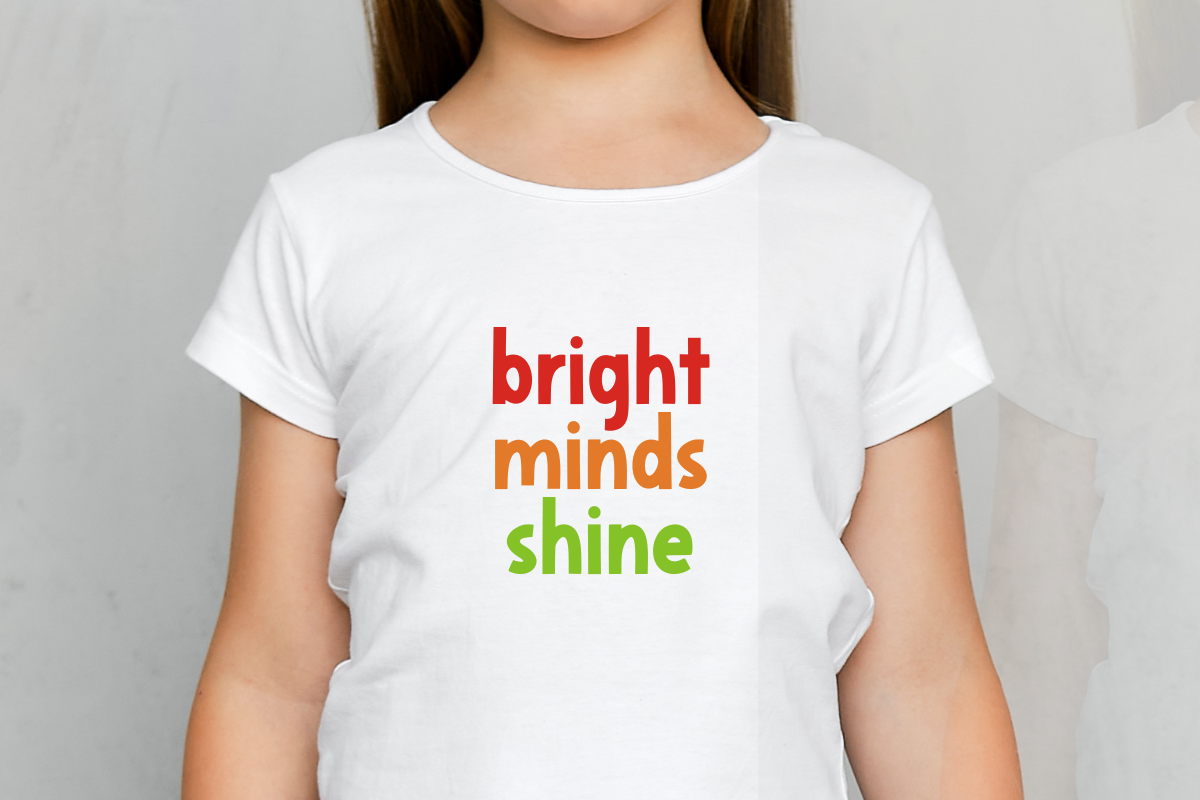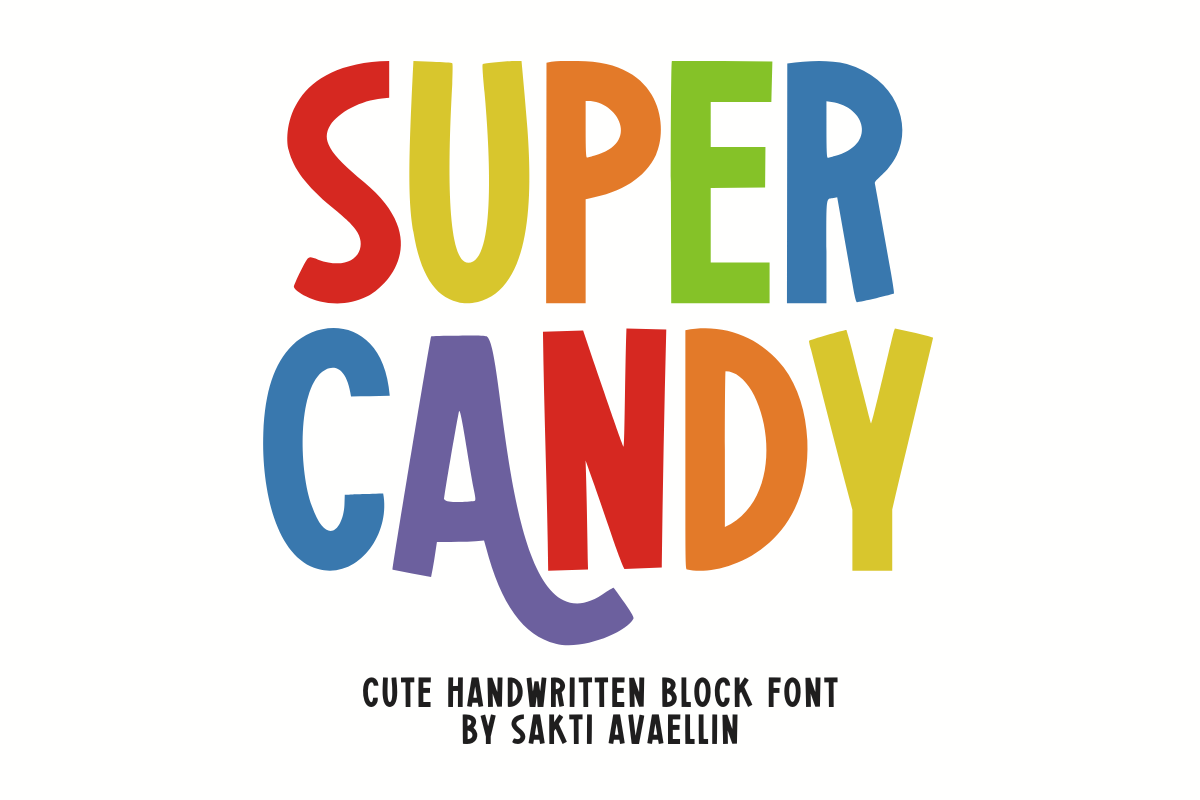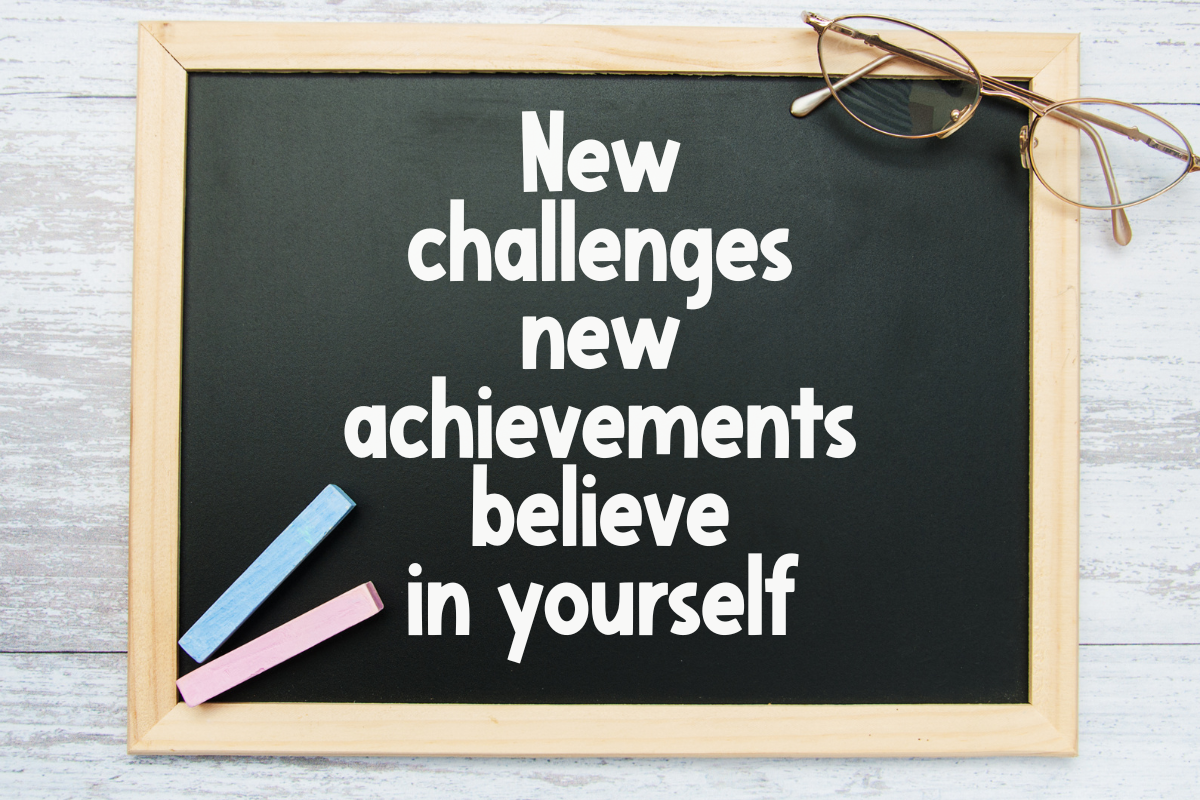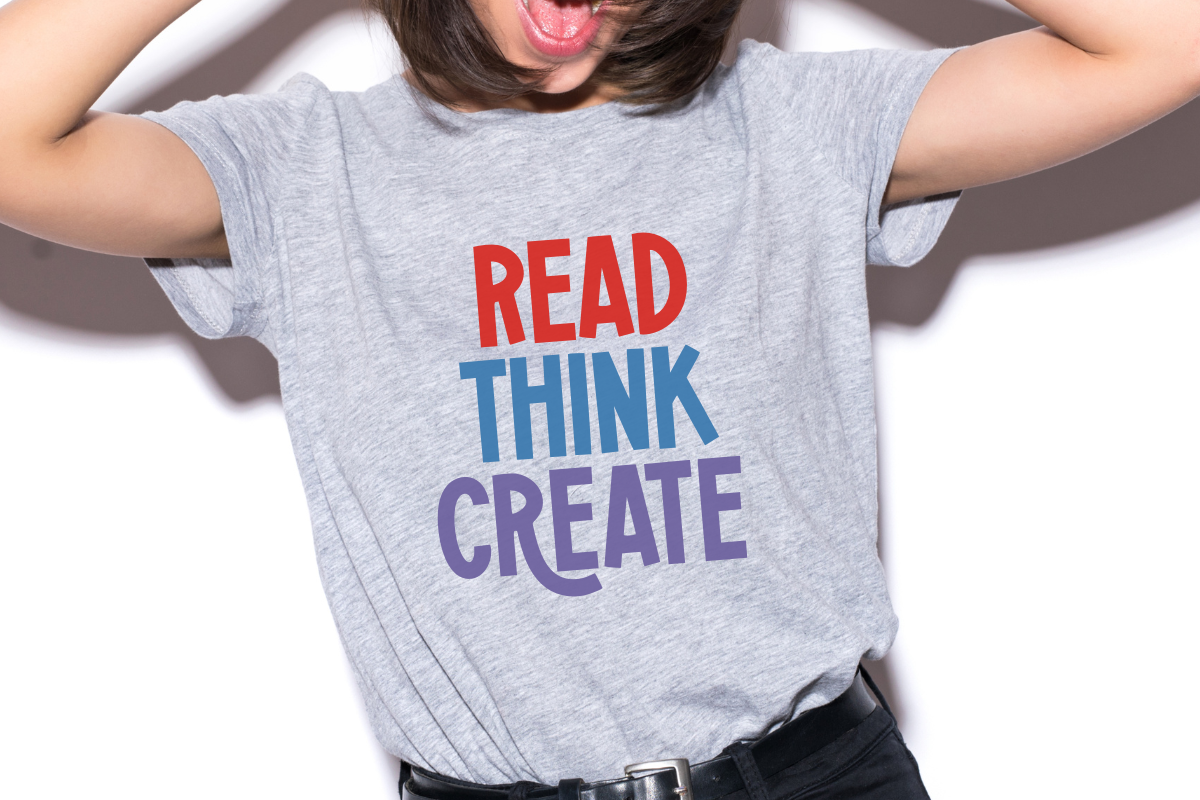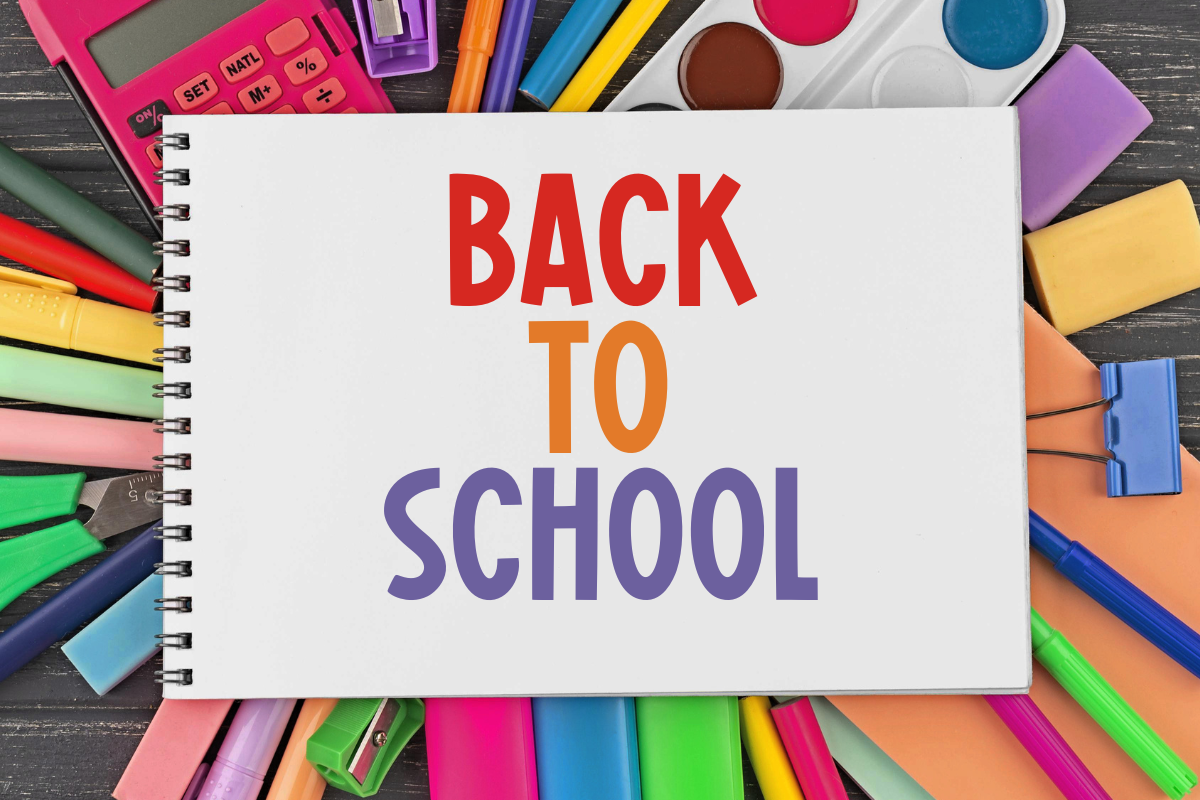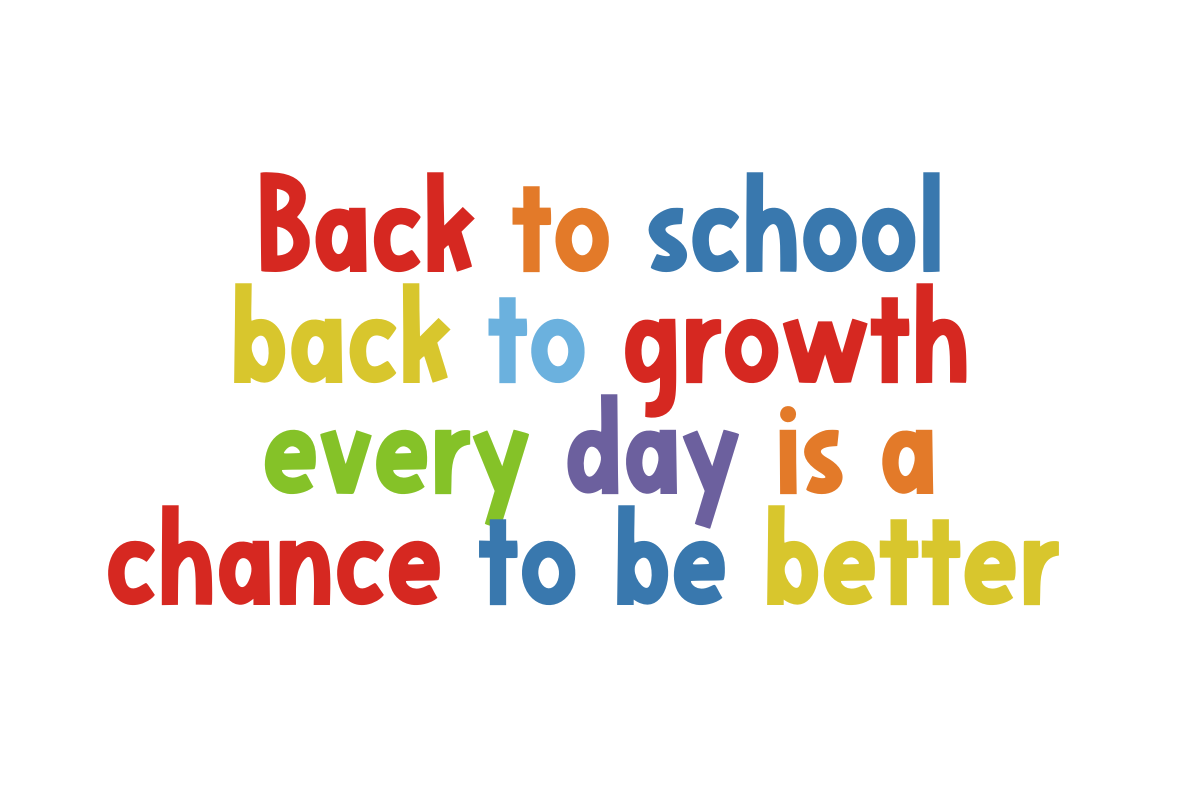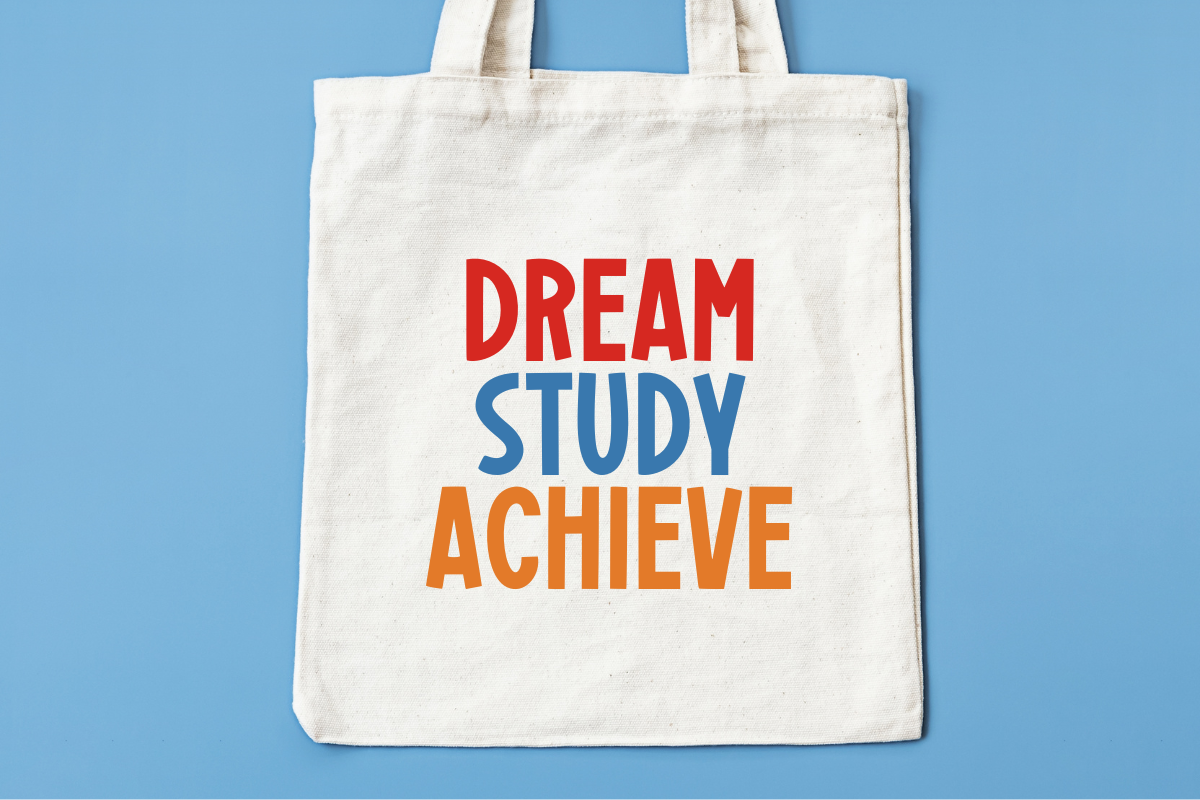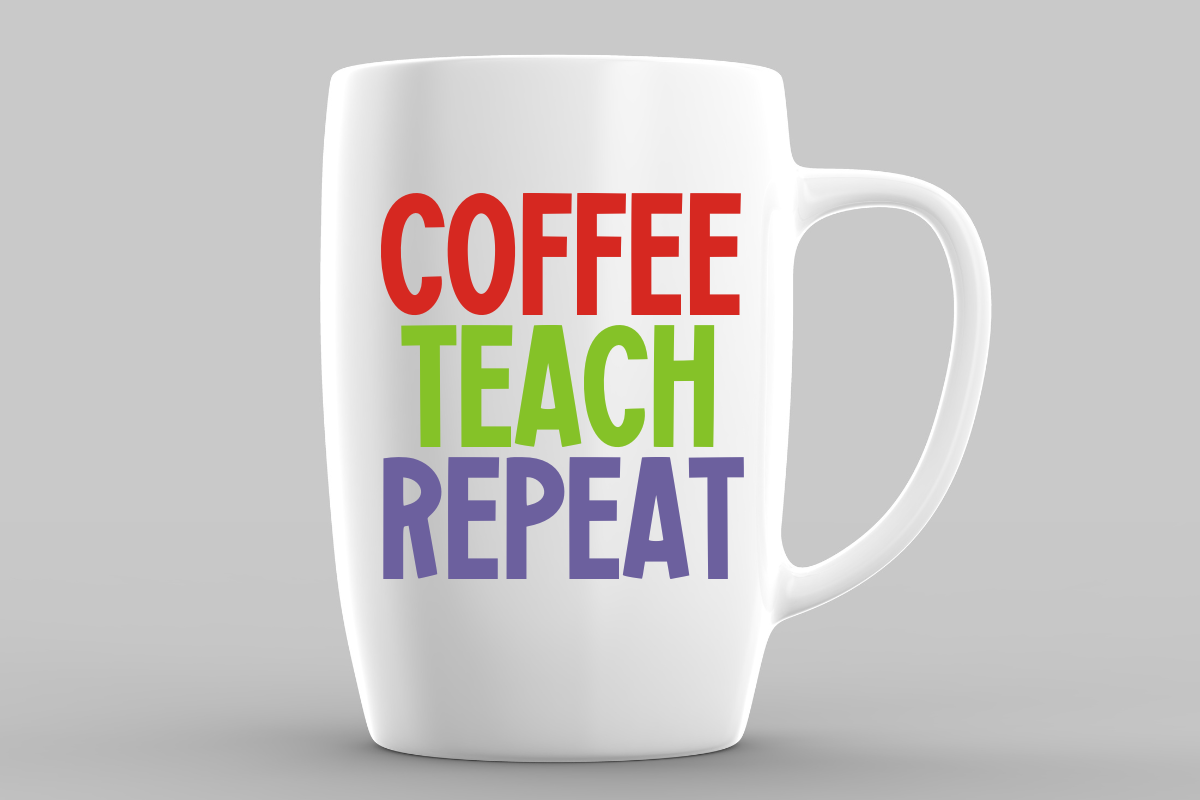
Super Candy - Cute Handwritten Font
Super Candy is a deliciously fun, bold, and incredibly cute bubble font that radiates playful energy and a sweet aesthetic. This chunky display font features exaggerated, rounded letterforms, creating a soft and whimsical mood, making it essential for kids' branding, cheerful party invitations, fun feminine logos, vibrant t-shirt designs, and engaging social media graphics. Its distinctive, heavy style ensures it is a powerful display typeface for headlines and product packaging, appealing to a trendy audience that loves bold, modern, and adorable design. Give your creative projects a sugary boost with this delightful retro sweet font!